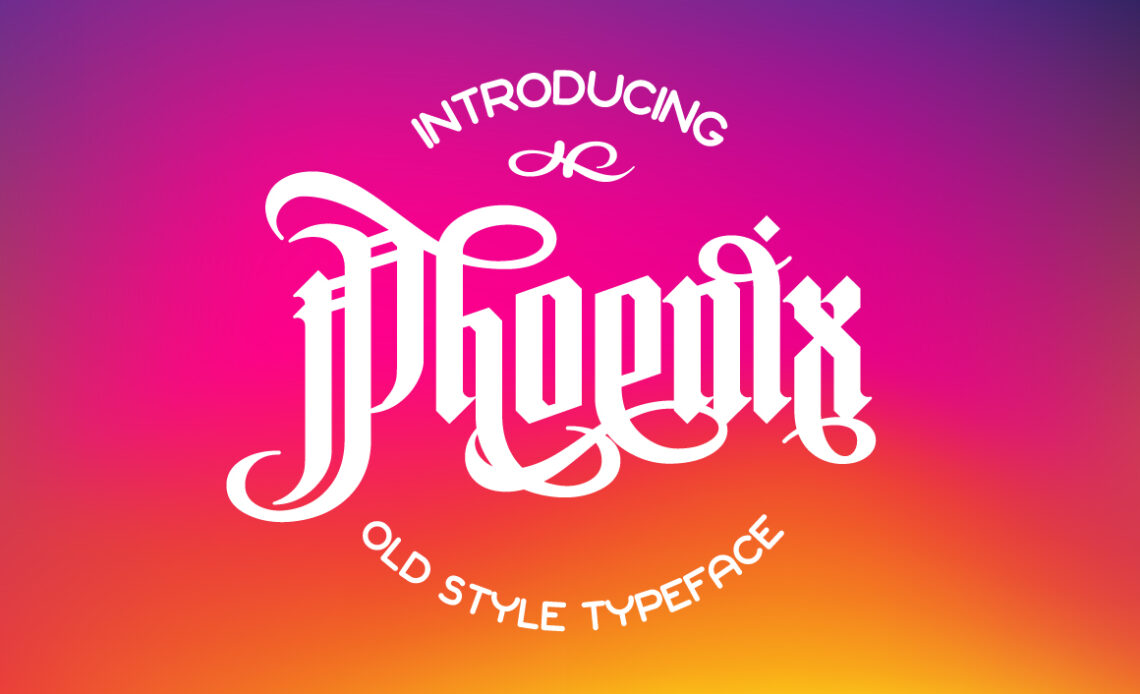
Introducing Phoenix Font, the ultimate choice for anyone seeking to add a touch of elegance and sophistication to their design projects. Crafted with meticulous attention to detail by the talented team at NREY, this captivating blackletter font is bound to leave a lasting impression on all who lay their eyes upon it.
With its mesmerizing Gothic style, Phoenix Font offers a unique blend of tradition and modernity. Whether you're a graphic designer, a brand owner, or simply an individual looking to elevate your creative endeavors, this font is a must-have in your toolkit. Its versatility knows no bounds, making it perfect for a wide range of applications.
When it comes to creating impactful logos, headers, and titles, Phoenix Font reigns supreme. Its bold and commanding presence instantly grabs attention, leaving a lasting impression on viewers and conveying a sense of strength and authority. Let your brand stand out from the crowd with this remarkable font that exudes confidence and professionalism.
But that's not all – Phoenix Font also shines in the realm of classical wedding invitations. Its elegant curves and intricate details evoke a sense of timeless beauty, perfectly setting the tone for a memorable celebration of love. The combination of traditional blackletter elements with a contemporary twist creates a truly enchanting aesthetic that will captivate both the couple and their guests.
Fashion enthusiasts rejoice, as Phoenix Font is here to amplify your stylish creations. Whether you're designing trendy apparel, fashion magazines, or runway-worthy graphics, this font effortlessly elevates your work to new heights. Its bold strokes and intricate letterforms add a touch of drama and allure, making every piece truly eye-catching and on-trend.
But the possibilities don't stop there. Phoenix Font is a versatile tool that transcends boundaries and adapts to your imagination. From product labels to website designs, from packaging to social media posts, this font brings your ideas to life with its powerful presence and limitless potential.
Take your creativity to new heights with Phoenix Font – the best choice for those who seek to stand out, make a statement, and leave an indelible mark on the world of design.